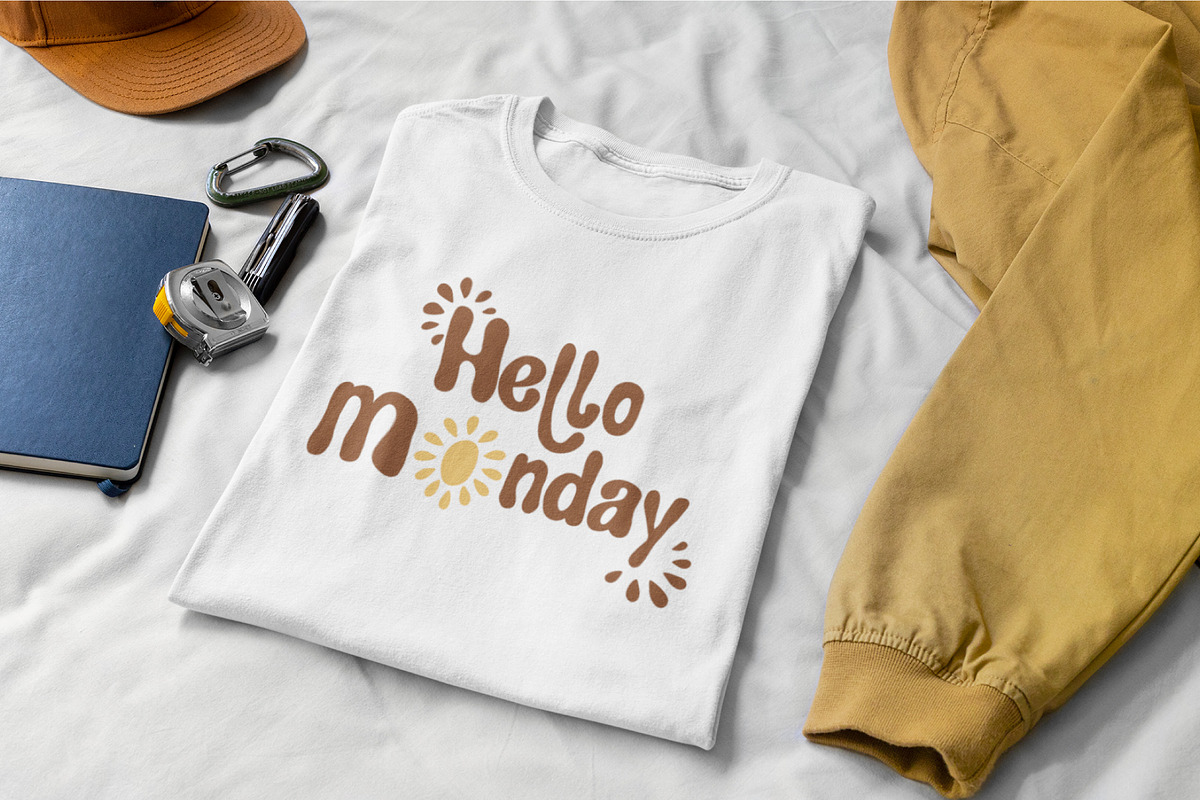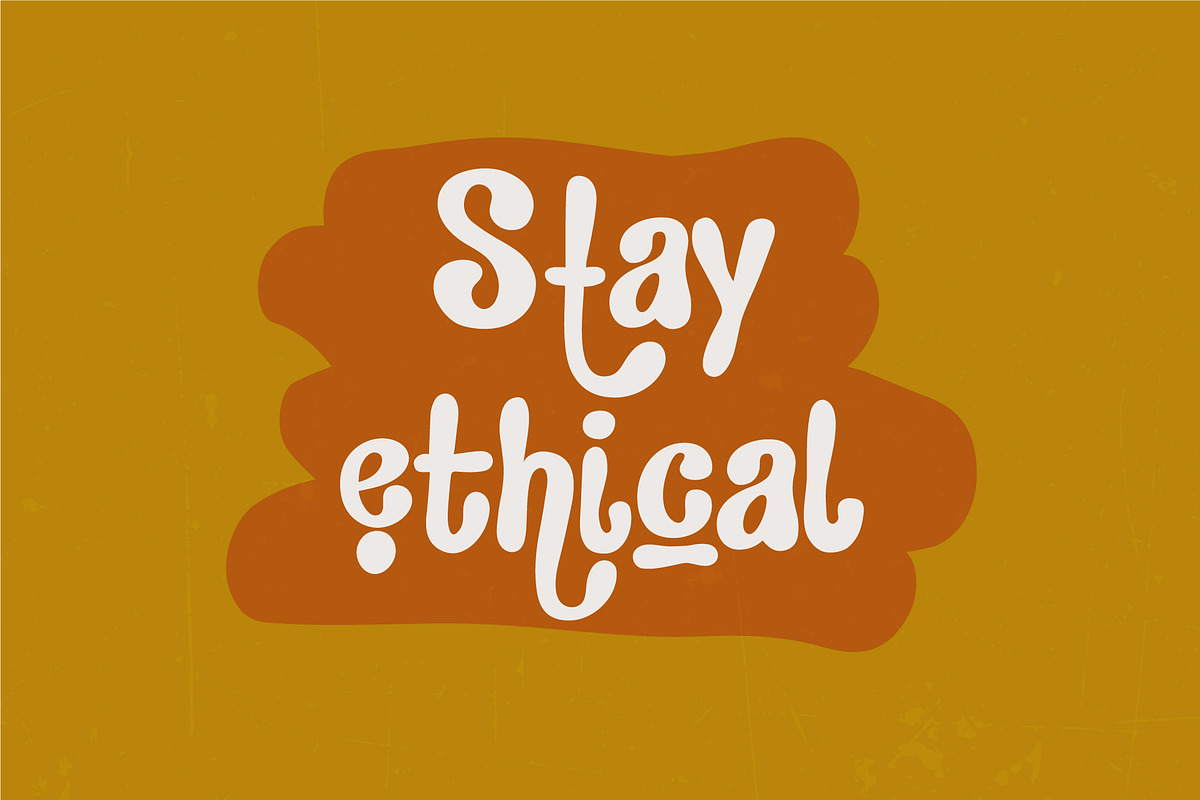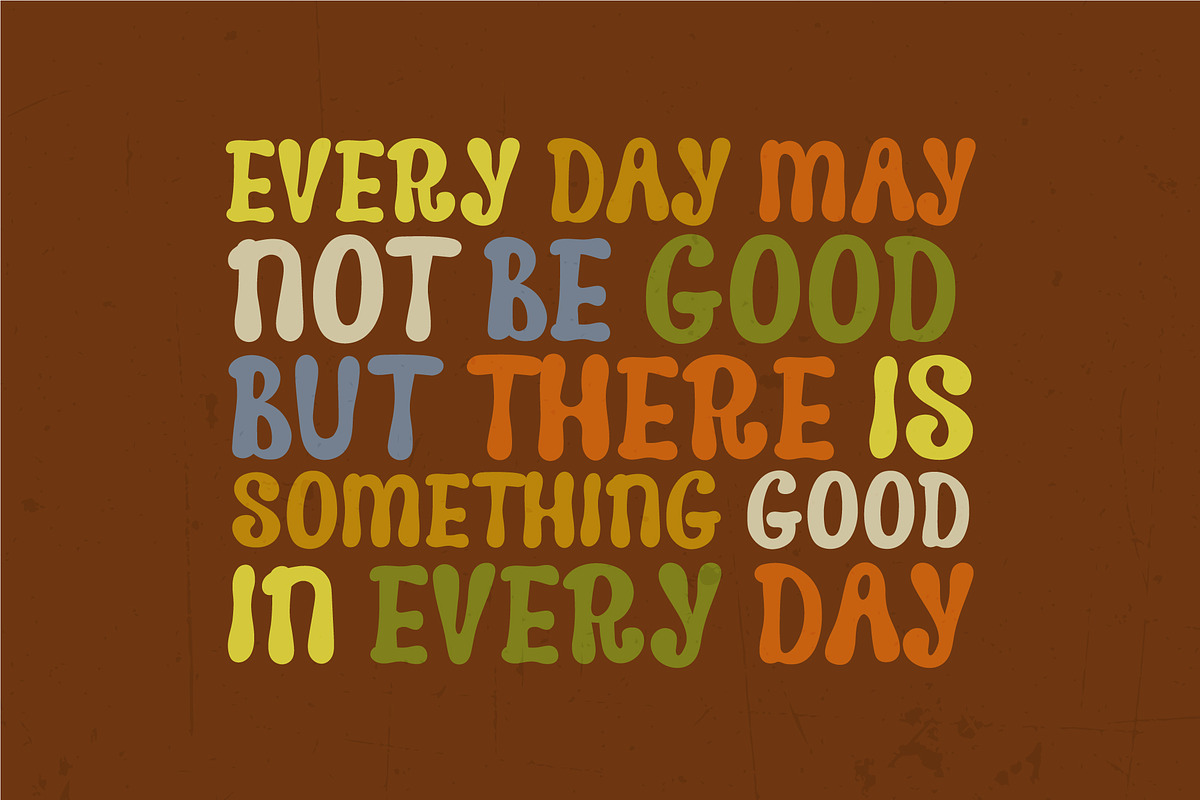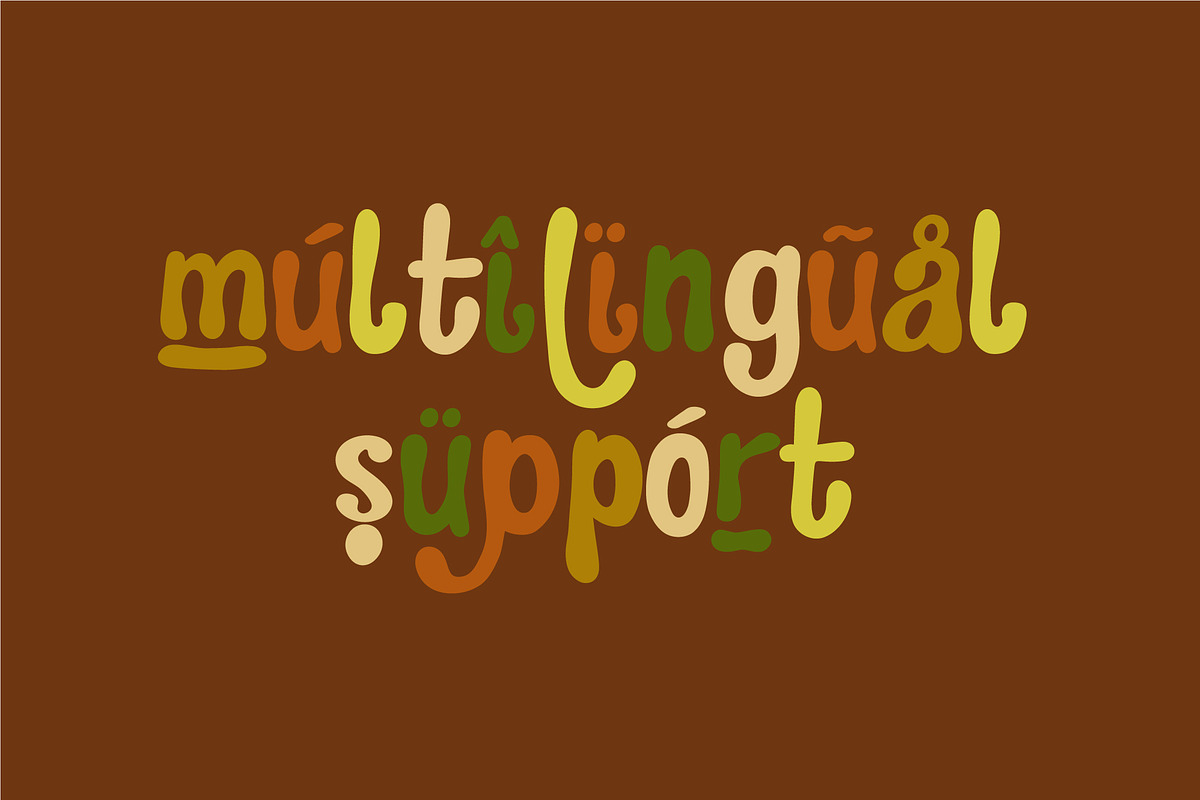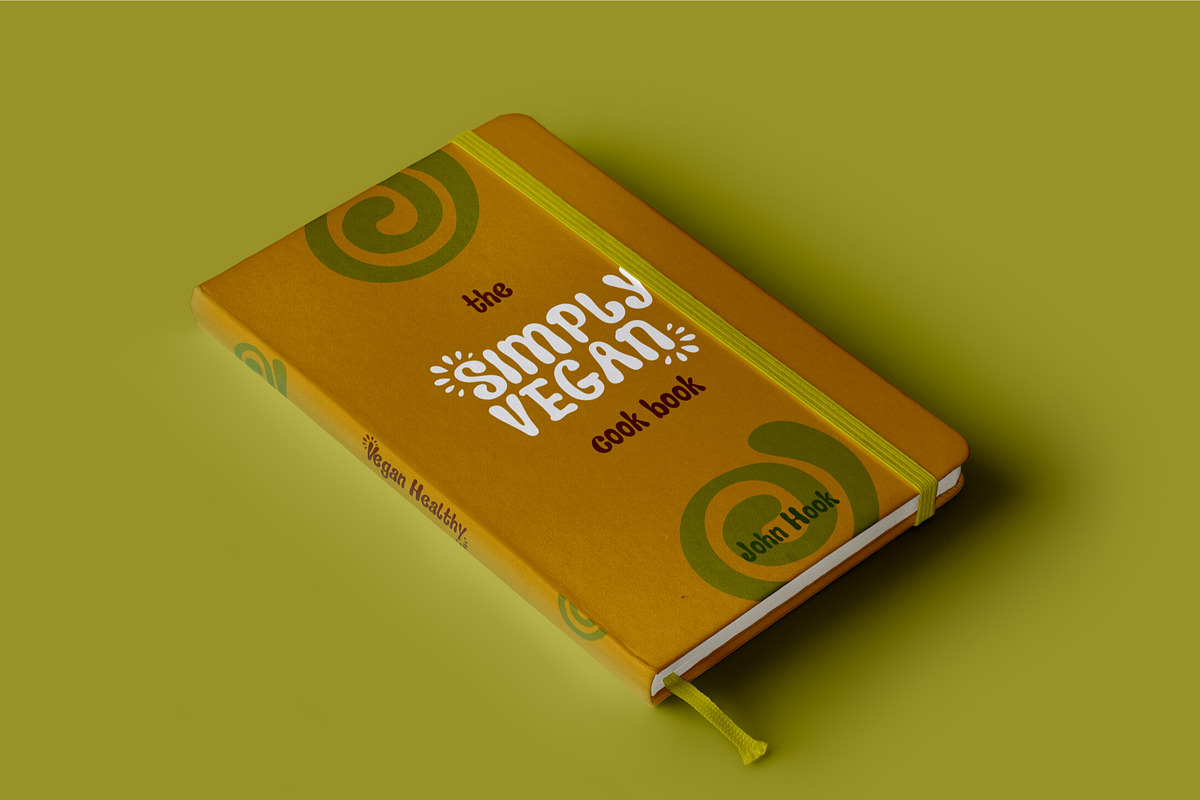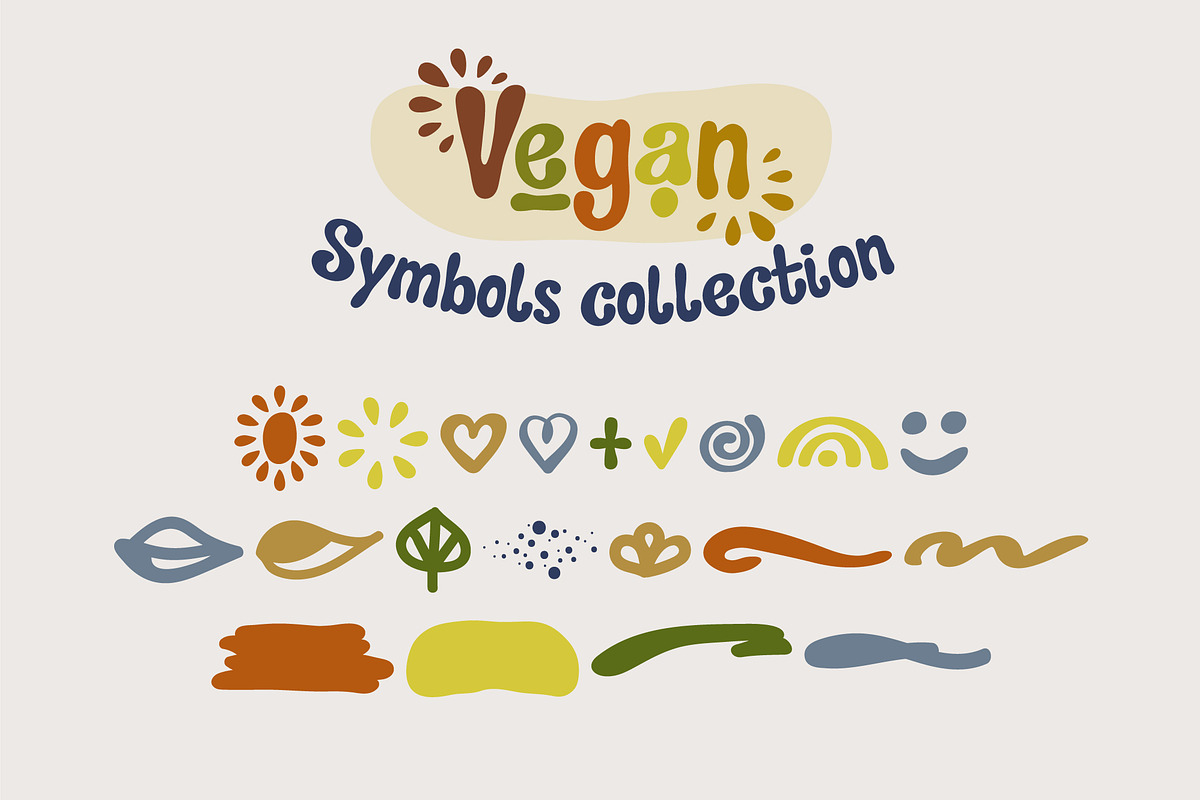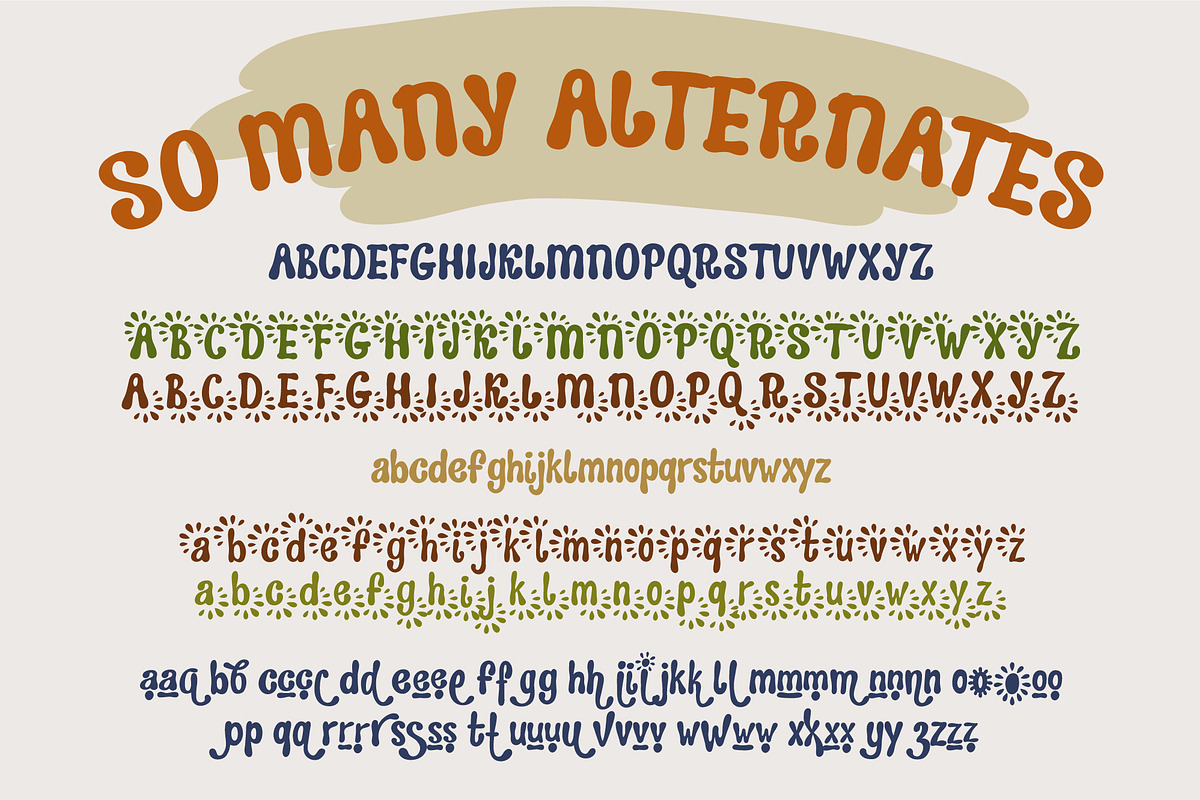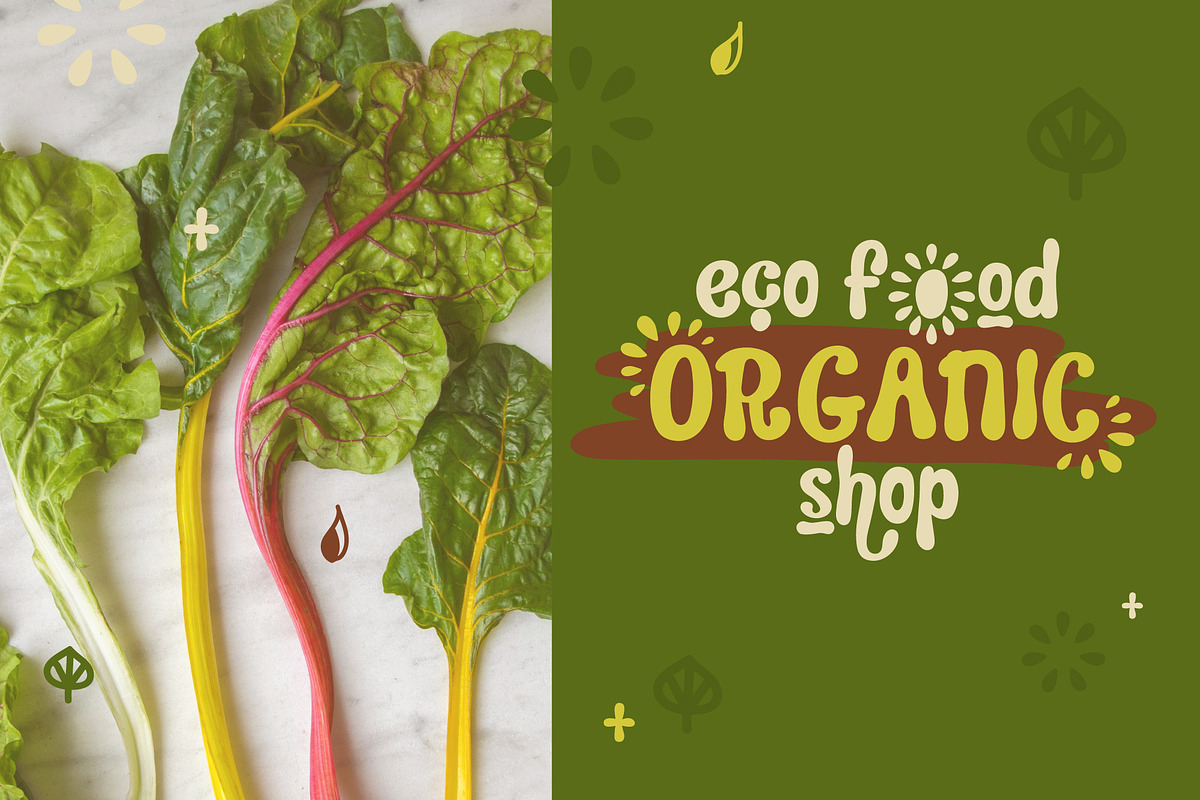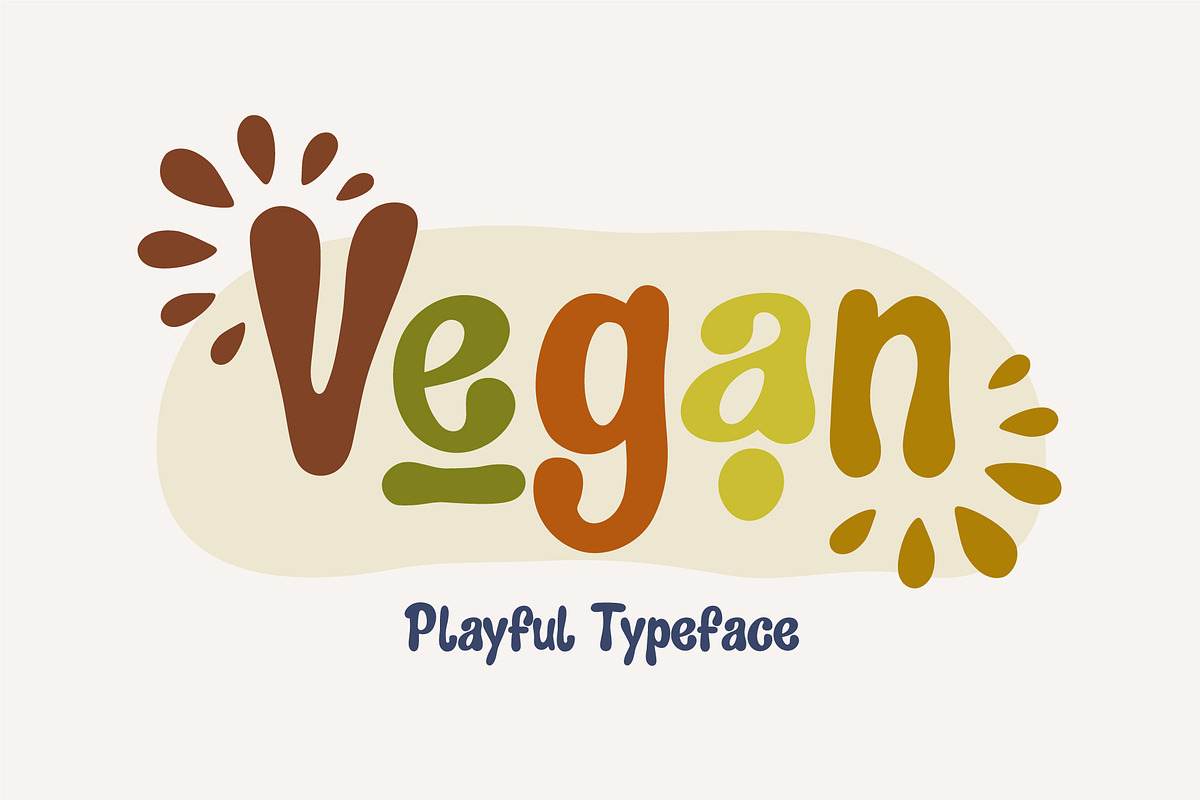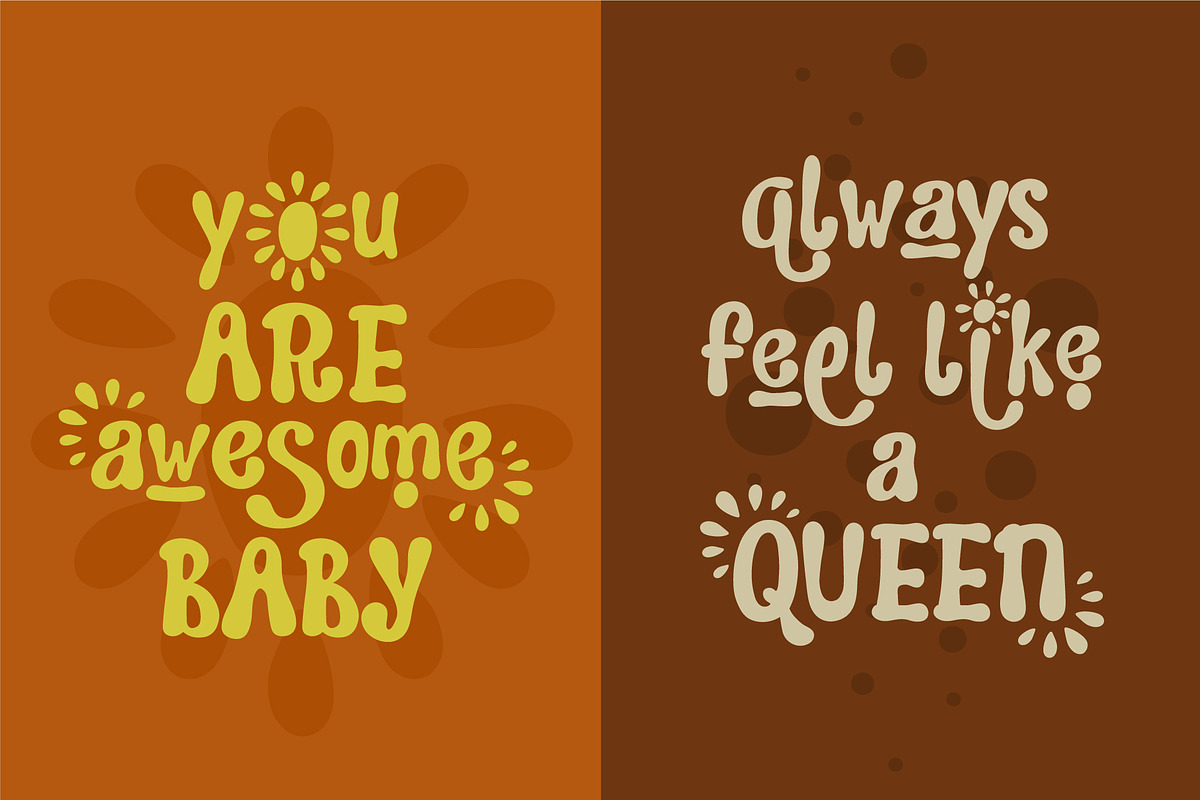
Vegan playful font
Vegan is a new eye-catching playful font which puts a smile on your projects and will inspire you to create something fun and memorable. It is perfect for headings, flyer, greeting cards, product packaging, book cover, printed quotes, logotype, apparel design, album covers, etc.
Vegan will help you to create special and touching typographical design for hand-written notes, scandinavian or childish projects, for every day or the happiest day in life, summer vacations, baby shower, happy birthday cards. This font is the owner of endless possibilities.
Vegan typeface has lots of alternates built into their OpenType features - make sure you have your alternates turned on to get their benefit, so you can play with them to get different looks! Just create the best design and make your projects cosy, funny, truly hand-written realistic and natural.
Vegan font has uppercase and lowercase letters, alternates, hand-drawn extras, numbers & basic punctuation, multilingual support (French, German, Italian, Norwegian, Portuguese, Spanish, Swedish, Swiss German).
This is such a fun, playful font! It has a late 90s vibe that I was looking for, and I was pleasantly surprised by all the alternate characters included. A lot of times there are only a few select letters with alternates, but this font has plenty, which allows for a lot more design variations. Really pleased.